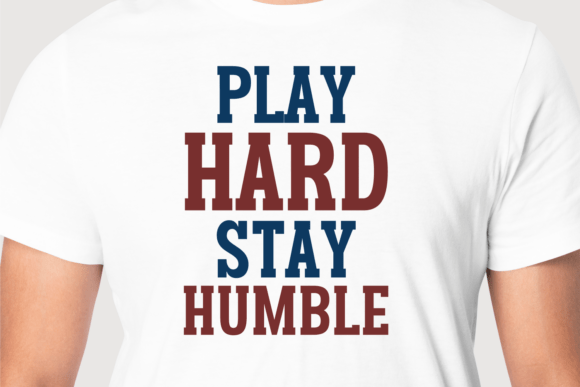
Famous Christmas Font
Immerse yourself in the lively energy of the holiday season with Famous Christmas—a condensed slab serif typeface with a commanding presence.
This font’s robust aesthetic makes it a striking choice for logos, headlines, and signs. Expand the use of Famous Christmas to elevate formal media like invitations, periodicals, books, and various labels. The versatility doesn’t stop there—its flair fits seamlessly with the glam world of fashion, makeup, and stationery.
Famous Christmas fonts’ exuberance truly shines on festive media, including greeting and wedding cards, packaging, or in an animation to capture the festive joy.
Succinctly capturing the essence of holiday excitement, the Famous Christmas font brings merry cheer to celebratory invitations and vibrant festive decorations, enhancing the spirit of joy and celebration synonymous with its name.